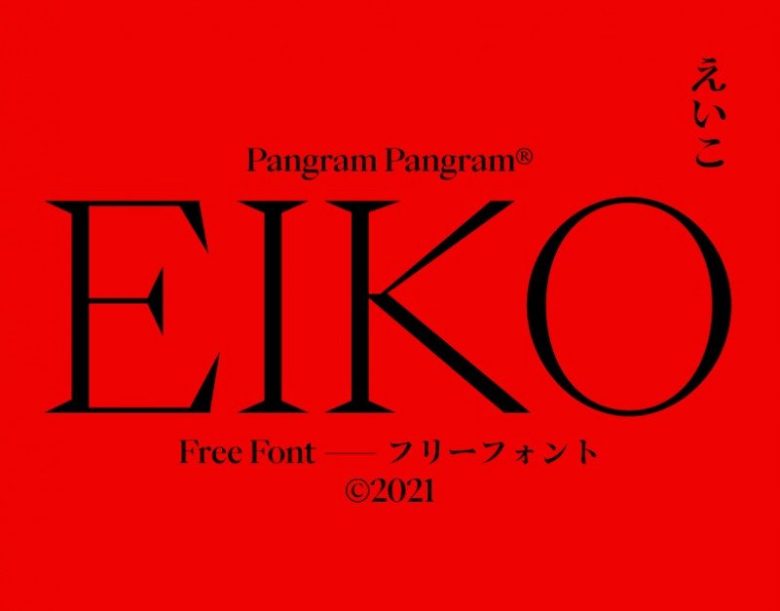
Eiko Font
Eiko is a modern serif typeface. With sharp angles, but looks good and stands out for titles, headlines, logos, etc. It is inspired by the work of Eiko Ishioka, a multitalented Japanese artist, this typeface seeks to convey the same aspect of her work in these typographic explorations.
It is an original serif font with high contrast, including the syllable alphabet kana, hiragana + katakana, it is ideal to pair with other kanji fonts of the Japanese mincho style.
Eiko Serif Font